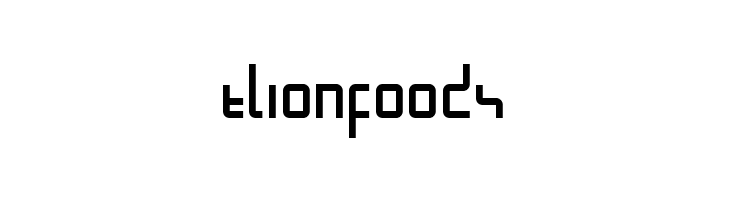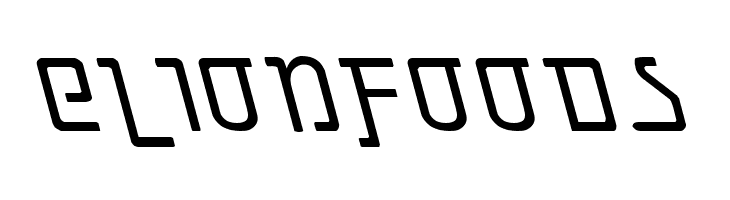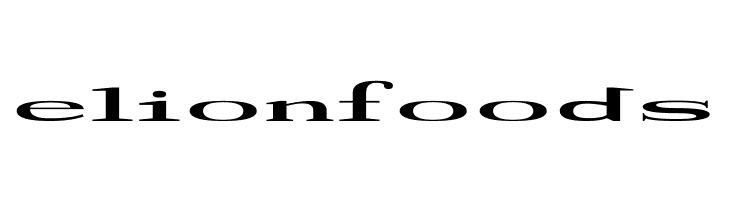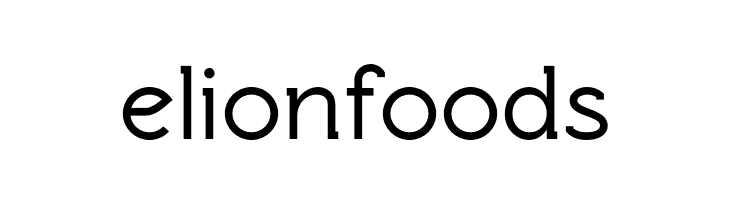
( Fonts by Pi Luo Chiu - thisisallenchiu.tumblr.com )
A clean, geometric font with rounded edges and consistent line weight.
A pixelated, blocky font with a retro digital aesthetic.
A futuristic, angular font with geometric shapes and a dynamic slant.
A bold, geometric font with a futuristic and edgy style.
( Fonts by Grzegorz l - www.glukfonts.pl )
A bold, modern sans-serif font with clean lines and consistent stroke width.